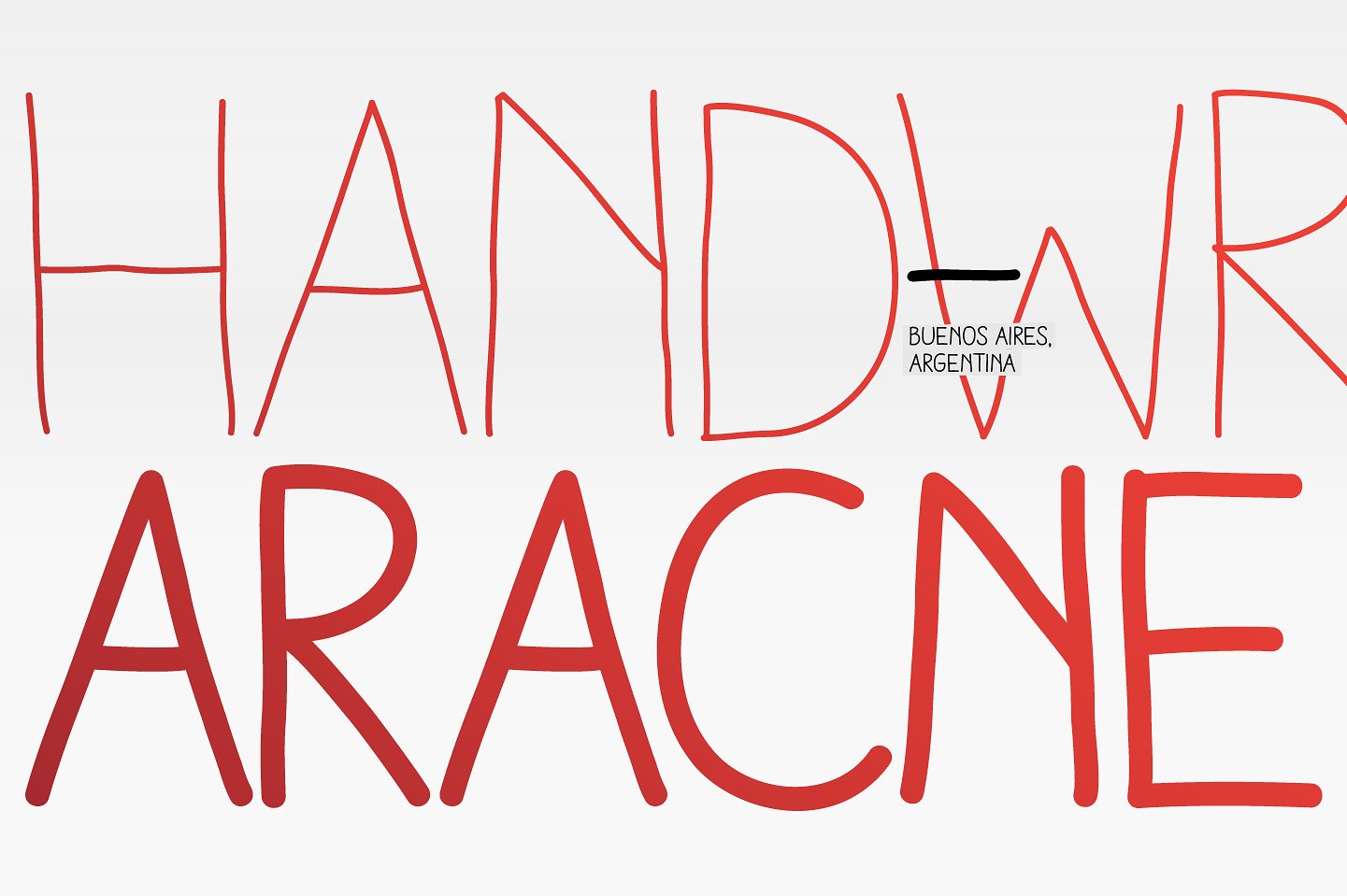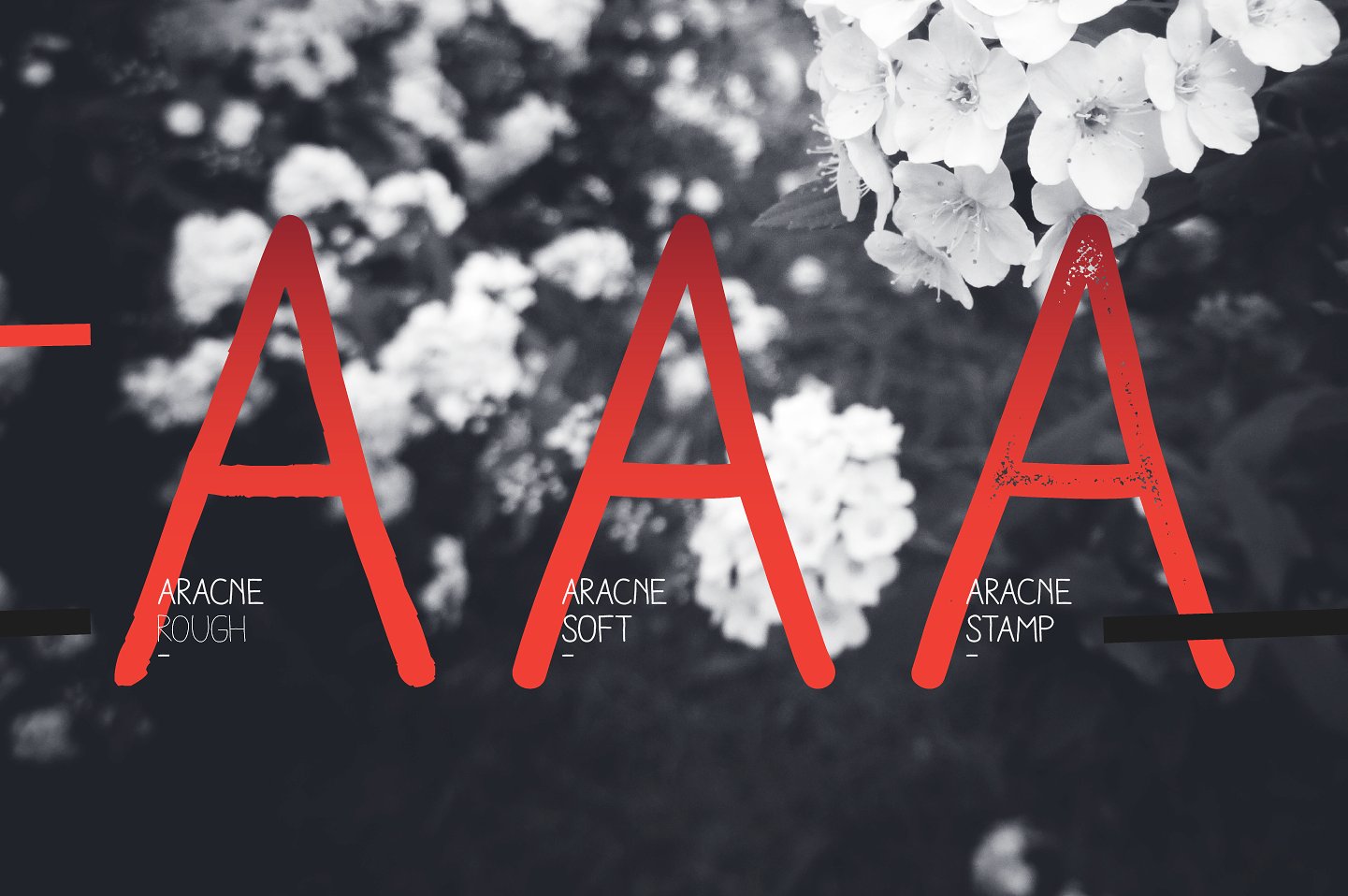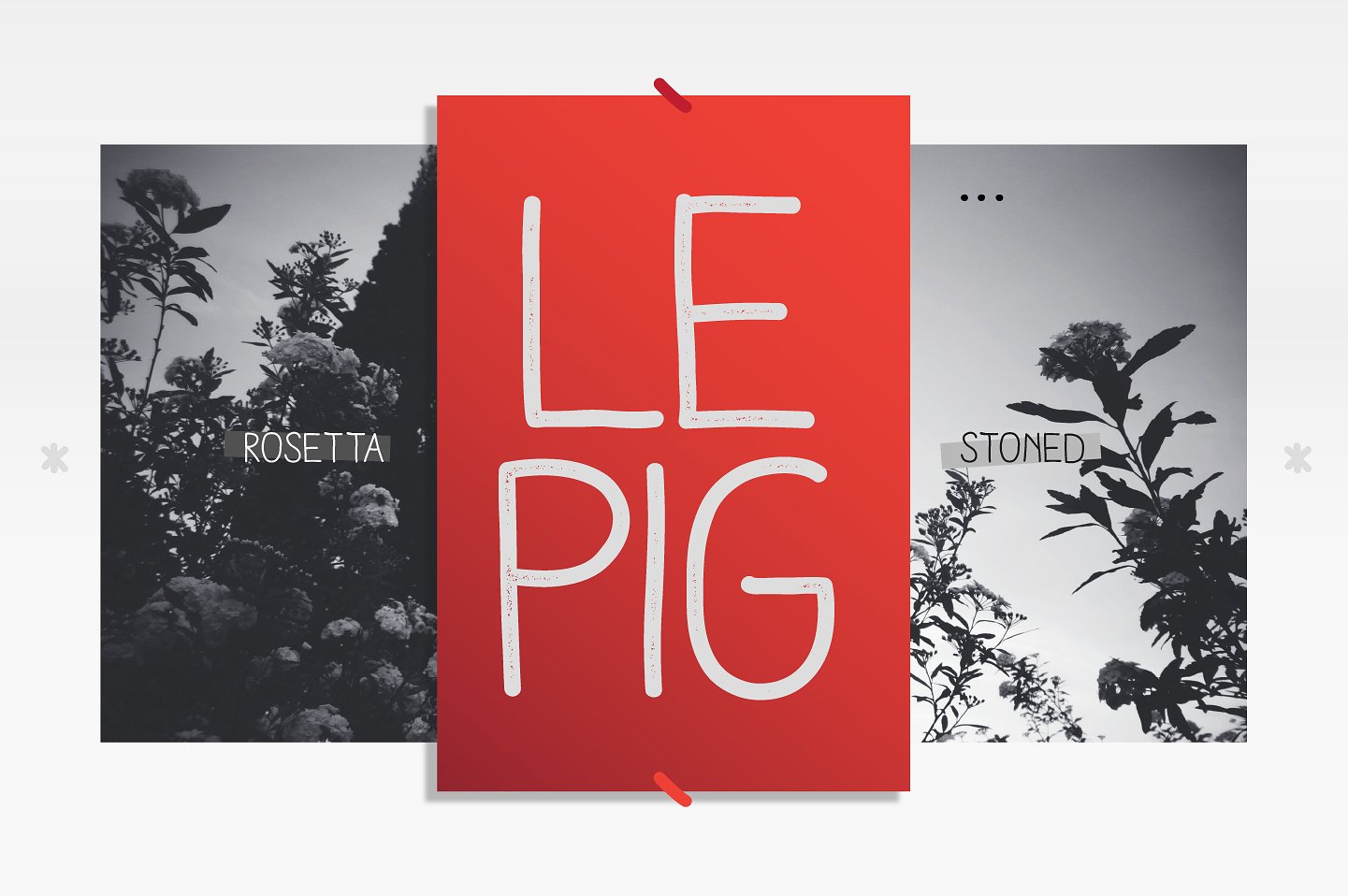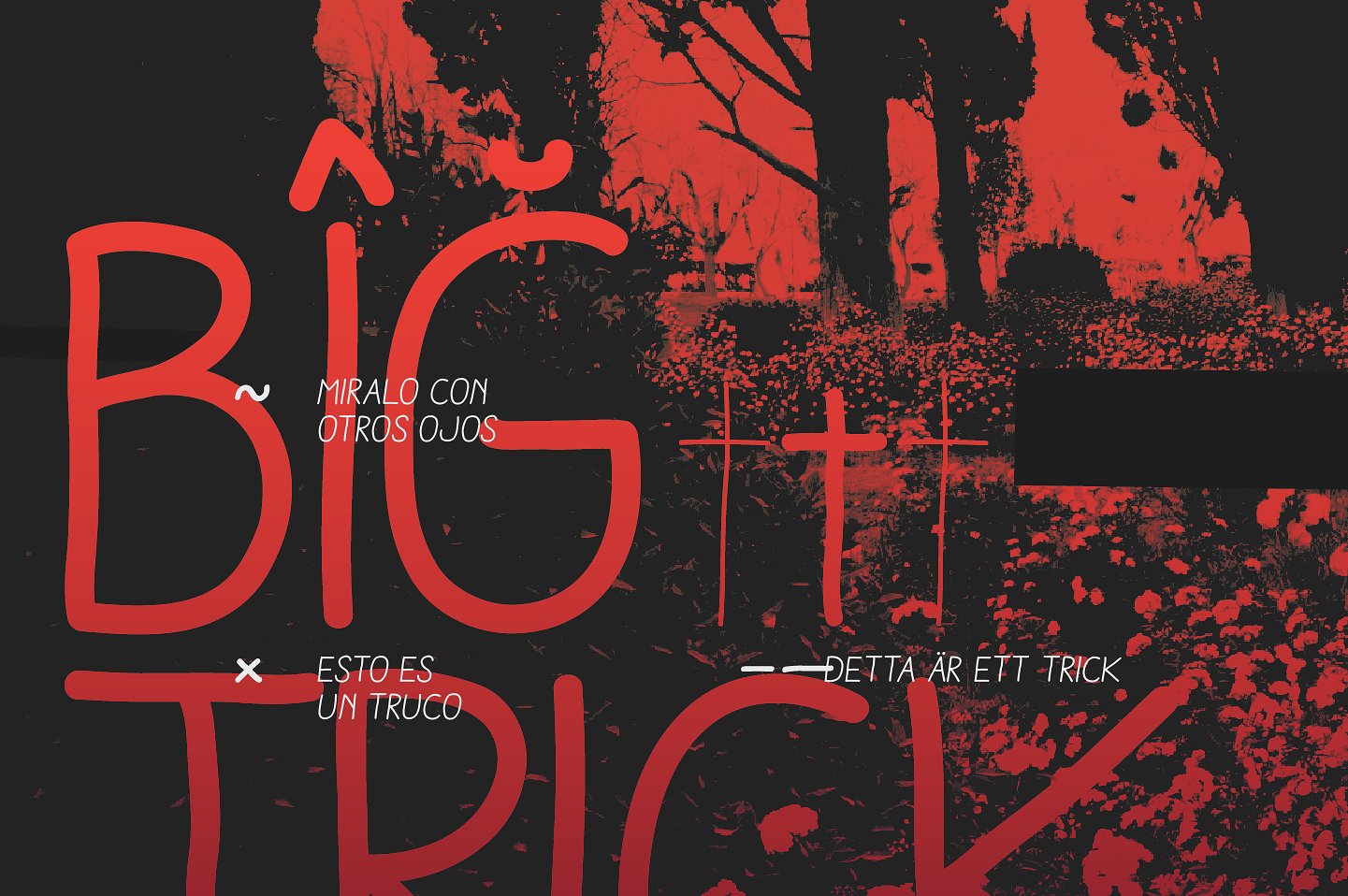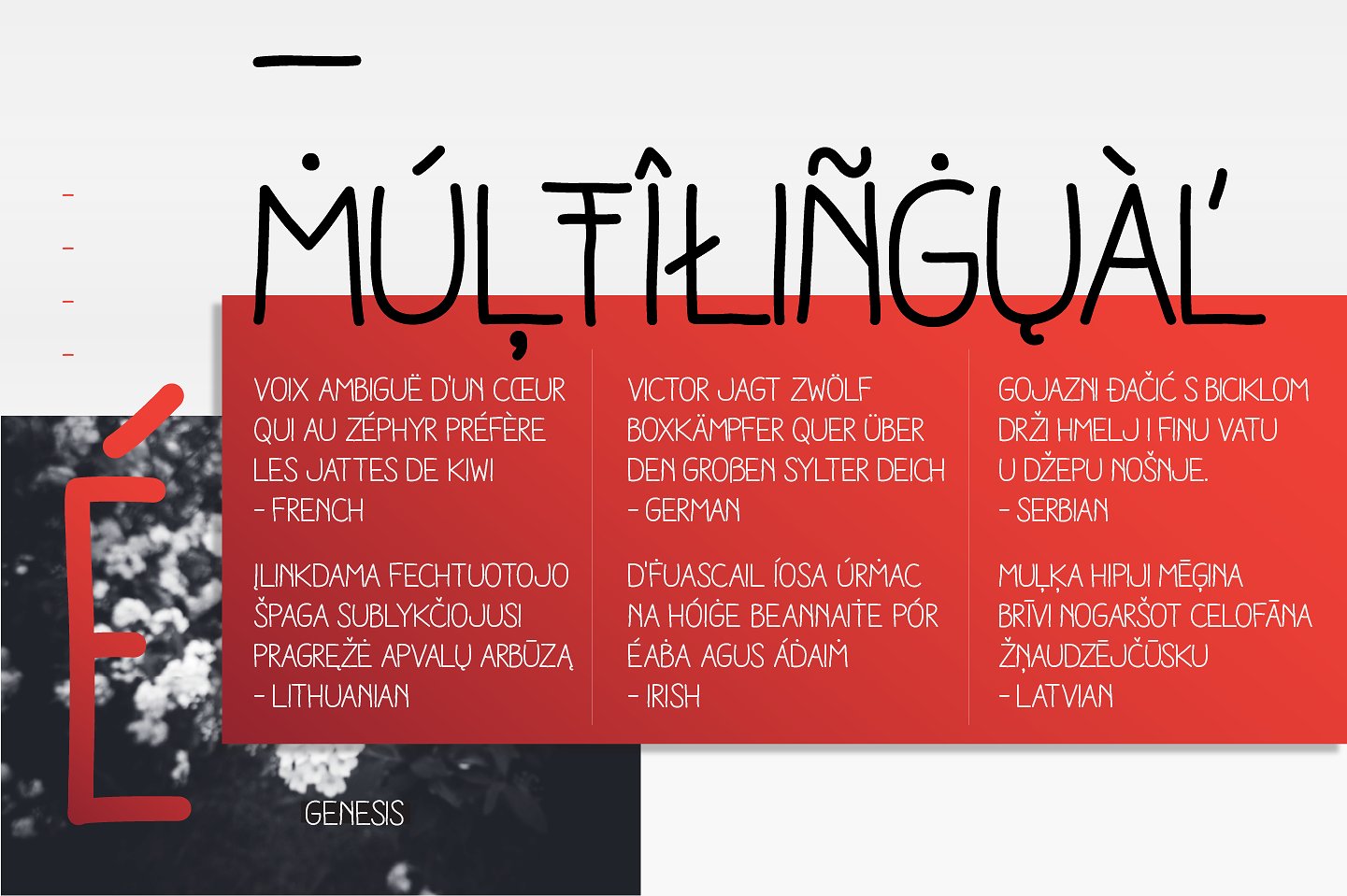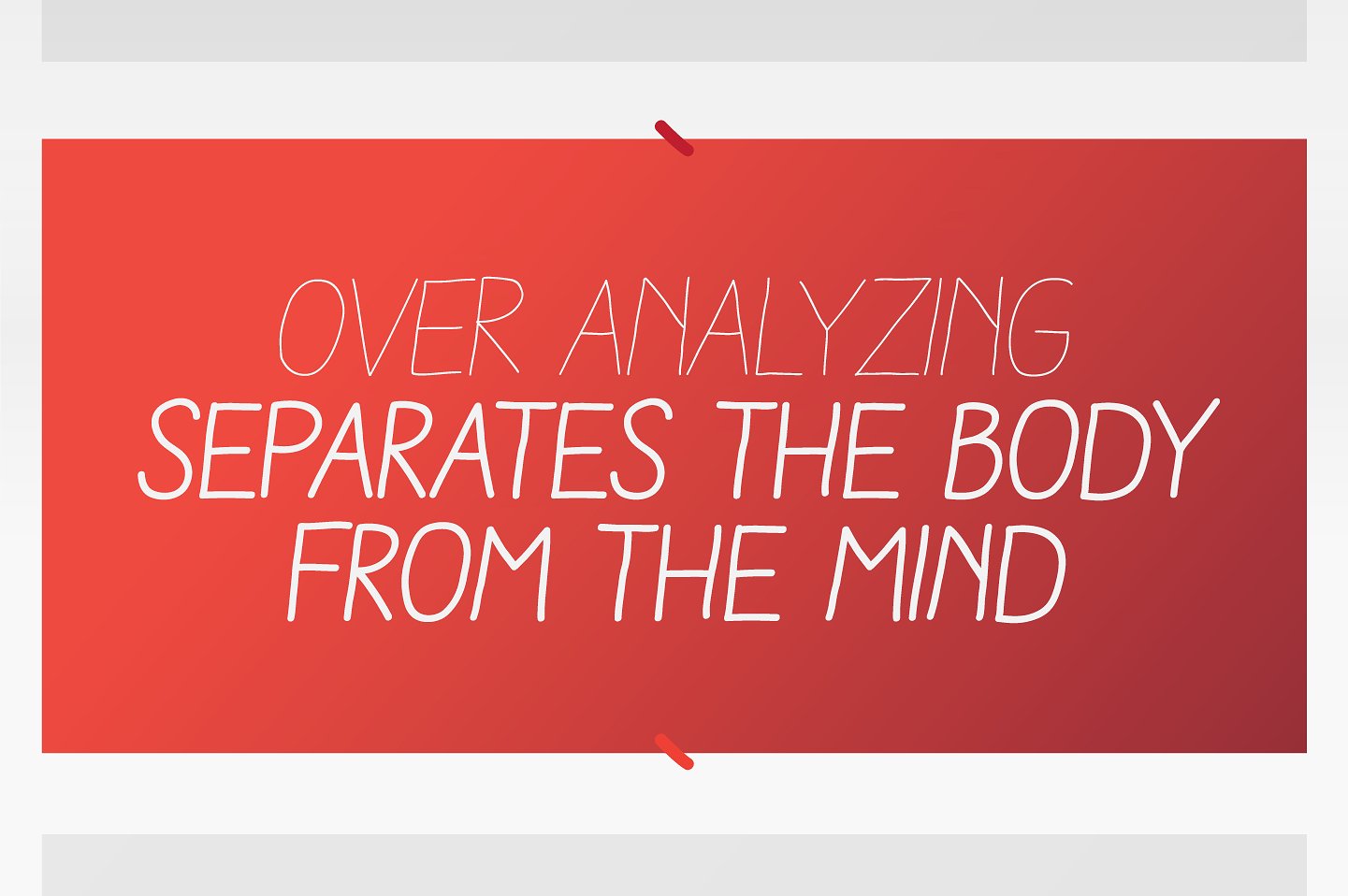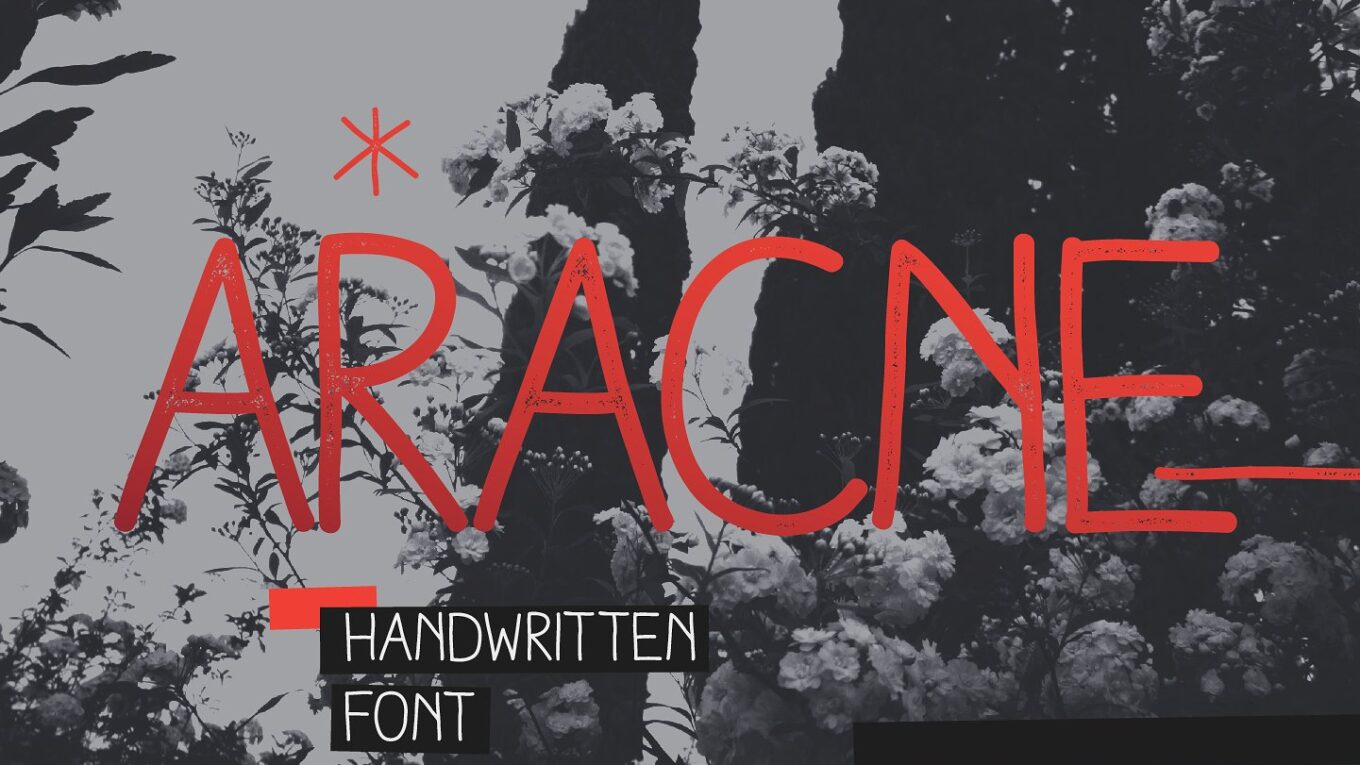
Aracne Font: The Perfect Blend of Relaxed Elegance and Modern Flair
In the world of typography, few fonts manage to strike a balance between elegance and playfulness. Aracne Font, however, is an exception. This beautiful collection of tall, slightly scrawled letterforms exudes a sense of relaxed sophistication, making it an ideal choice for designers and crafters looking to add a touch of modern flair to their projects.
The Unique Charm of Aracne Font
Aracne Font is characterized by its tall, slender letterforms that seem to dance across the page with a carefree energy. The slightly scrawled quality of the font gives it a playful, hand-crafted feel that is both charming and engaging. This unique blend of elegance and whimsy makes Aracne Font a standout in the world of typography.
Perfect for Modern and Poppy Designs
Aracne Font is particularly well-suited to modern and poppy designs, where its energetic and playful vibe can really shine. Whether you’re working on a branding project, a website, or a social media campaign, Aracne Font is sure to make a statement. Its tall letterforms and flowing lines create a sense of movement and dynamism, drawing the viewer’s eye and holding their attention.
What Makes Aracne Font So Special?
So, what sets Aracne Font apart from other fonts on the market? Here are just a few of its standout features:
• Unique letterforms: Aracne Font’s tall, slightly scrawled letterforms are unlike anything you’ve seen before. They add a touch of whimsy and personality to any design.
• Relaxed elegance: Despite its playful vibe, Aracne Font is also surprisingly elegant. Its slender lines and flowing curves create a sense of sophistication and refinement.
• High-energy feel: Aracne Font is full of energy and movement, making it perfect for designs that need to grab the viewer’s attention and hold it.
• Versatility: Aracne Font is incredibly versatile, and can be used in a wide range of design applications, from branding and advertising to packaging and web design.
How to Use Aracne Font in Your Designs
Ready to give Aracne Font a try? Here are a few tips for incorporating it into your designs:
• Use it as a headline font: Aracne Font’s tall letterforms and energetic vibe make it perfect for headlines and titles.
• Pair it with a sans-serif font: For body text, try pairing Aracne Font with a clean, sans-serif font to create a striking contrast.
• Experiment with colors: Aracne Font looks amazing in bold, bright colors. Don’t be afraid to get creative and try out different color combinations.
• Play with layout: Aracne Font’s flowing lines and energetic vibe make it perfect for designs that feature creative layouts and typography.
Aracne Font is a truly unique and special font that is sure to bring a touch of modern flair to any design project. Its relaxed elegance, high-energy feel, and versatility make it an ideal choice for designers and crafters looking to create something truly eye-catching. Whether you’re working on a branding project, a website, or a social media campaign, Aracne Font is definitely worth a try.
Get Ready to Fall in Love with Aracne Font
If you’re looking for a font that will add a touch of personality and whimsy to your designs, look no further than Aracne Font. With its unique letterforms, relaxed elegance, and high-energy feel, it’s the perfect choice for designers and crafters who want to create something truly special. So why wait? Give Aracne Font a try today and see the difference it can make in your designs!